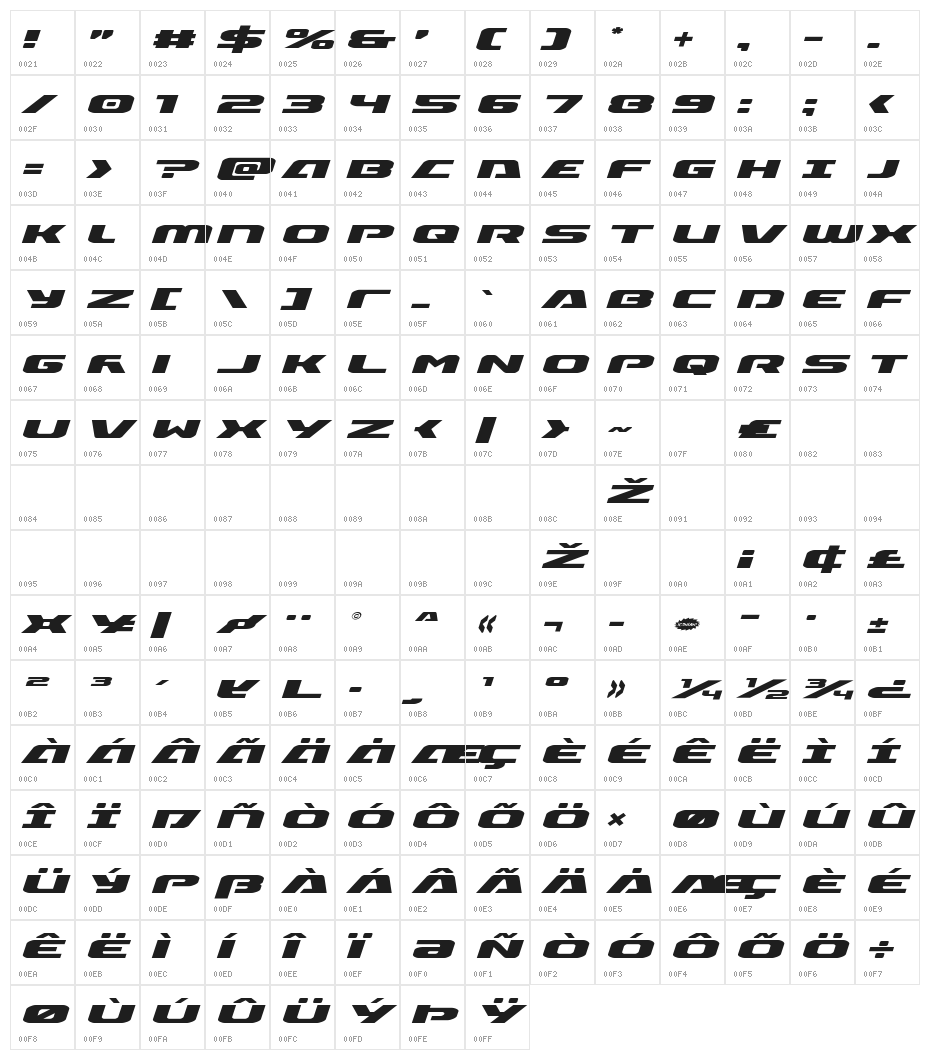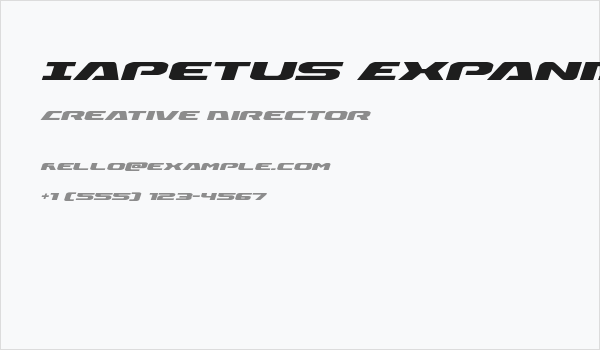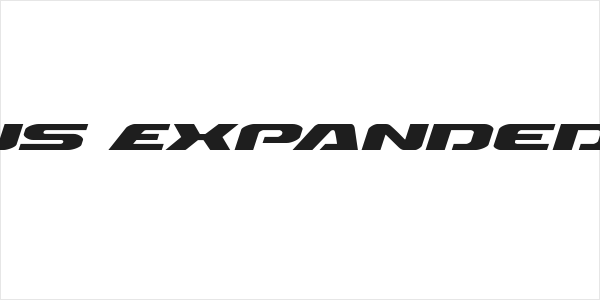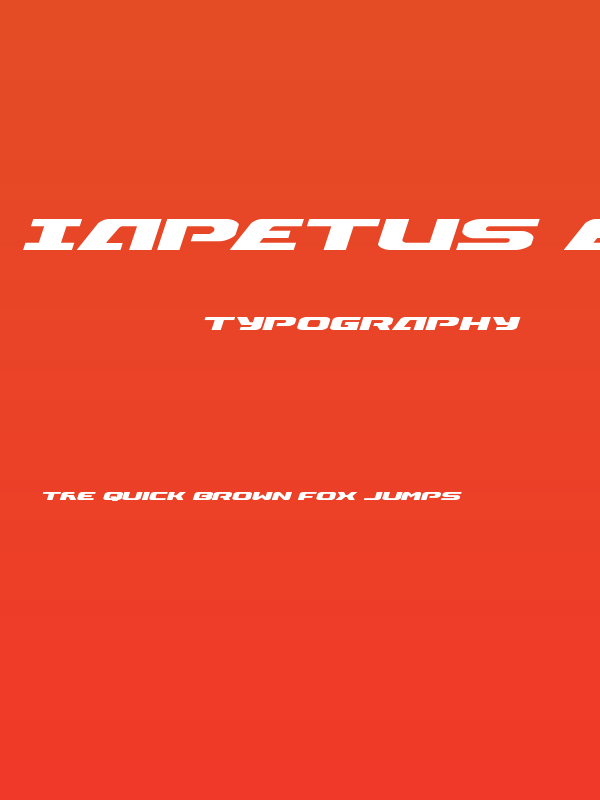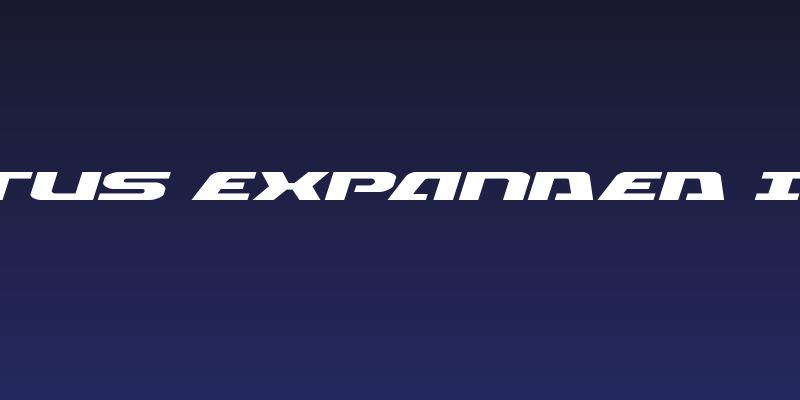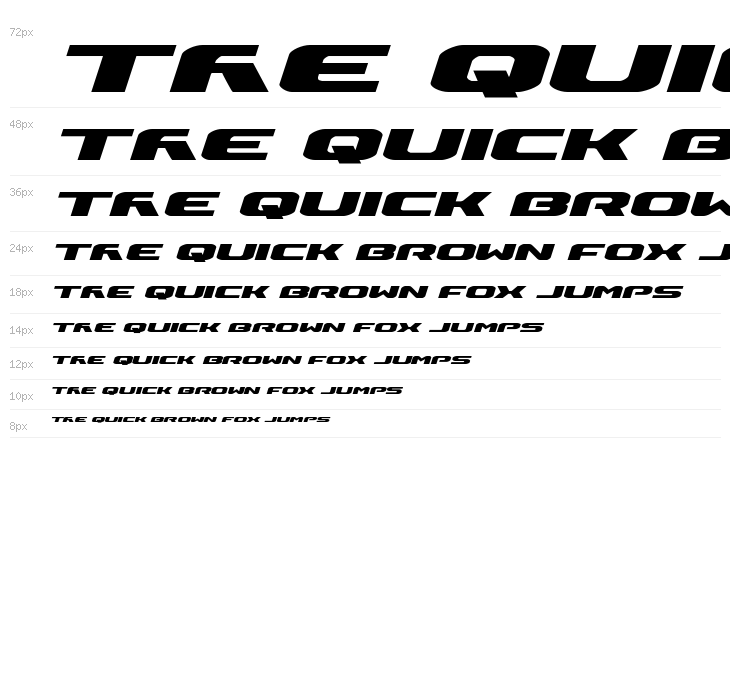
Iapetus Expanded Italic Font
Iapetus Expanded Italic Description
This font features a bold and dynamic design with an italicized slant, giving it a sense of motion and energy. The characters are wide and expanded, providing a strong presence on the page. The strokes are thick and consistent, contributing to a high contrast between the characters and the background. The angular and geometric shapes of the letters add a modern and futuristic feel, making it suitable for attention-grabbing headlines and impactful designs. The spacing between characters is tight, enhancing the compact and cohesive look of the text.
Proposed ProjectsIdeal for sports branding, tech-related designs, futuristic themes, and bold advertising campaigns.